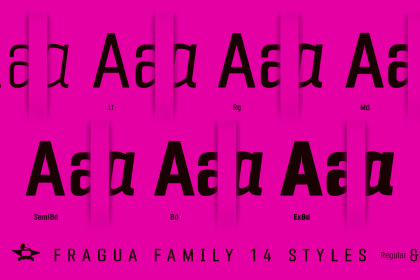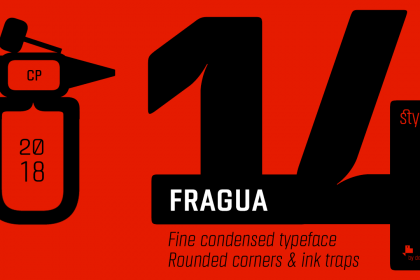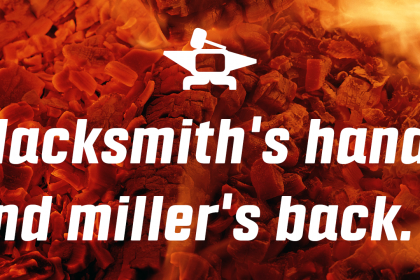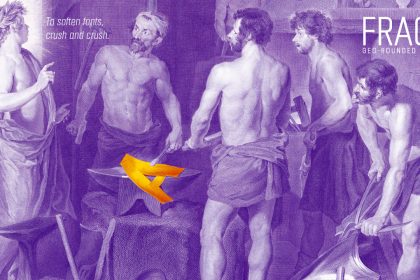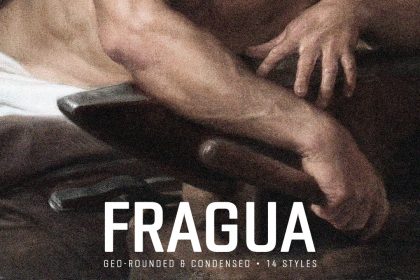
Fragua Sans & Condensed Font Family
Fragua is a family of 14 condensed Sans Serif fonts of geometric construction with ascending and descending short and a high height of the x, have a rounded finish in all the corners of the letters to avoid the coldness of the rectilinear fonts, providing warmth and docility , which results in a unique typography with maximum readability due to the careful configuration of metrics and kerning.
This typography is specially designed for advertising and editorial composition, behaving correctly in both short and medium texts and headlines, being an ideal typographic system for signage, editorial or corporate design.